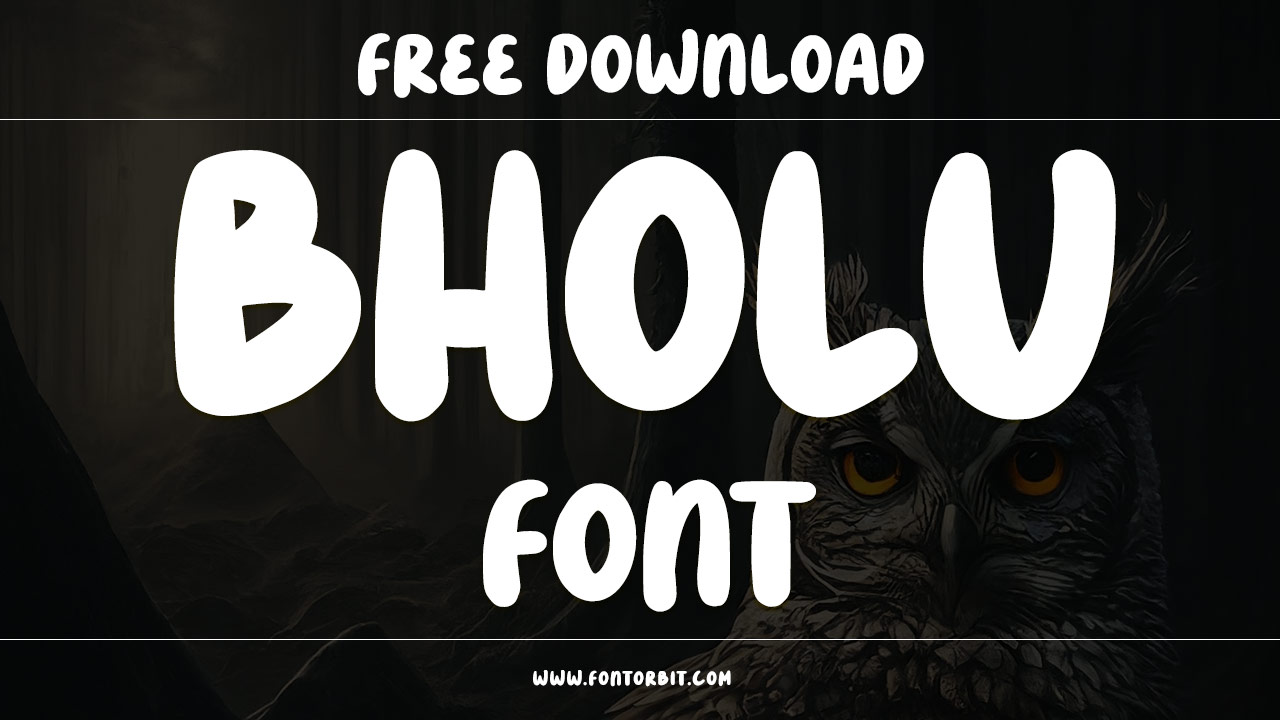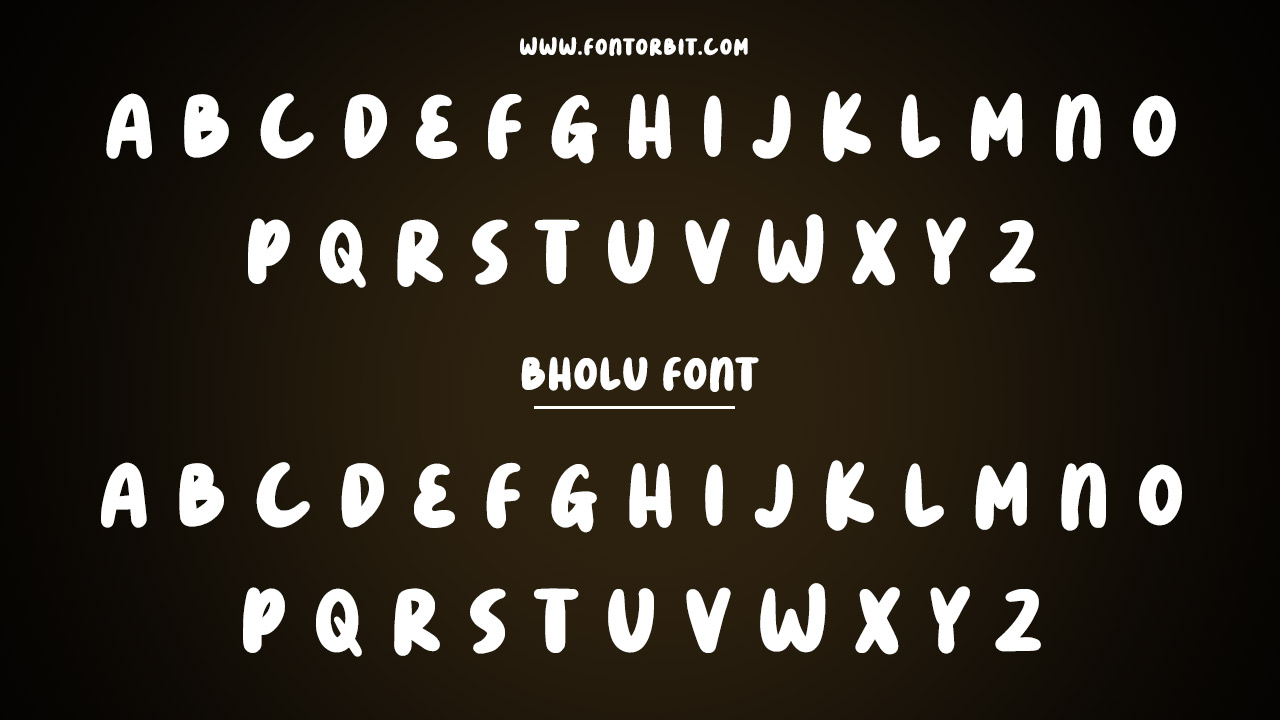
Bholu Font is a creative and charming handwritten font family designed by Fahrul Arjianto. This font is perfect for designers looking for a playful, cute, and bold typeface suitable for headlines, logos, branding materials, or personal projects. With its unique, whimsical design, Bholu Font adds a fun and casual touch to any creative project.
Bholu Font belongs to the handwritten and script font family. It features soft, rounded edges and a playful aesthetic that makes it a fantastic display font. The font family comes in two styles, “Regular” and “Bold,” allowing for maximum and minimum variations in your designs. The font is available in TTF (TrueType Font) format, ensuring compatibility with various design software and platforms.
The Bholu Font is a versatile typeface that fits both print and digital design needs. Whether you’re creating eye-catching headlines, cute text blocks, or colorful designs, this font is an excellent choice. Here are some common uses:
- Digital Design: Websites, social media graphics, YouTube thumbnails
- Print Media: Posters, brochures, school projects, product packaging
- Logos and Branding: Playful logos for kids’ brands or casual designs
- Personal Use: DIY crafts, greeting cards, invitations
1.What projects is Bholu Bold Font best suited for?
The Bholu Bold Font is perfect for playful and creative projects like school materials, posters, colorful text blocks, and headlines. Its handwritten, casual aesthetic makes it ideal for fun and dynamic designs.
2.How does the Bholu Font balance its style and usability?
Bholu Font combines a cute display font style with smooth, rounded edges and a handwritten appearance. Its design offers maximum and minimum variations, making it versatile for both bold headlines and softer text designs.
4.How many styles are available in the Bholu Font family?
The Bholu Font family features two styles: Regular and Bold. These styles provide designers with options to create dynamic typography with 1-2 variations depending on the project needs.
6.What are some similar fonts to Bholu Font?
If you’re looking for similar fonts with a handwritten style, you might consider Janda Manatee Solid, ZAMRACK, Century Gothic, or Optima Font. These fonts complement Bholu Font with their playful or minimal aesthetics.
7.How to customize Bholu Font for specific designs?
To customize Bholu Font, experiment with colors, letter spacing, and pair it with clean, sans-serif fonts like Gothic or Futura. This combination can create visually appealing contrasts for logos, colorful blocks, or detailed text designs.